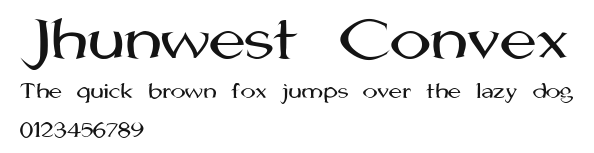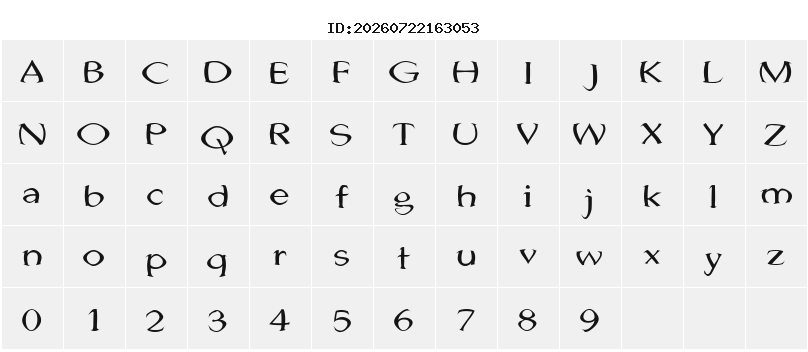
• Font Name: Jhunwest Convex
• Full Font Name: Jhunwest Convex
About Jhunwest Convex.ttf
Jhunwest Convex.ttf is a modern, elegant sans-serif font designed for ultimate readability and visual harmony. Perfect for branding, headlines, web design, and print materials.